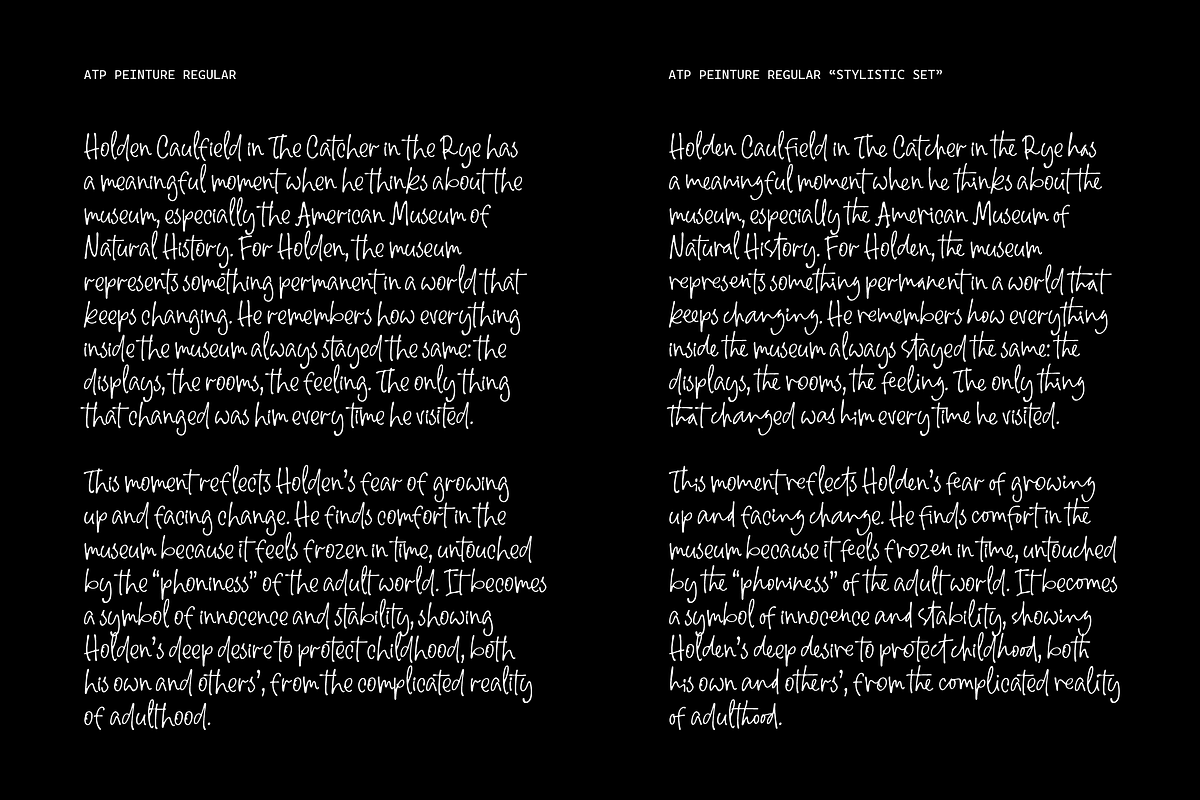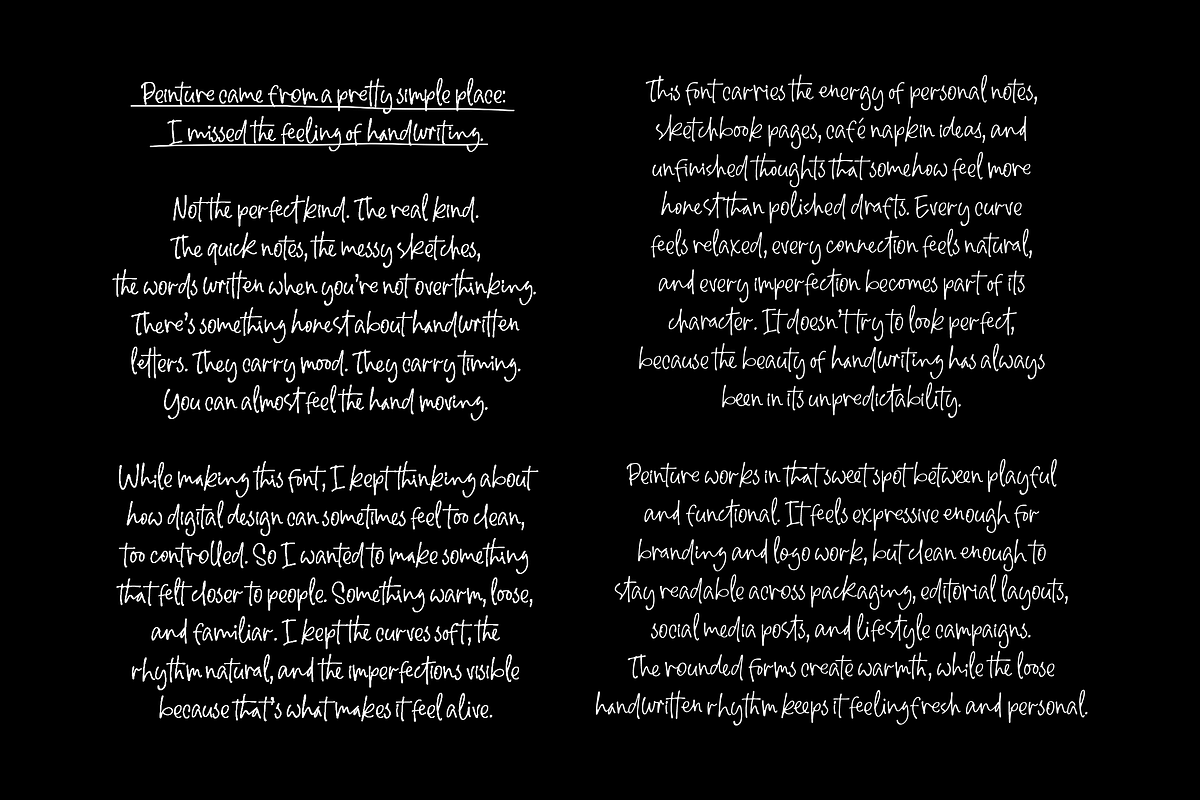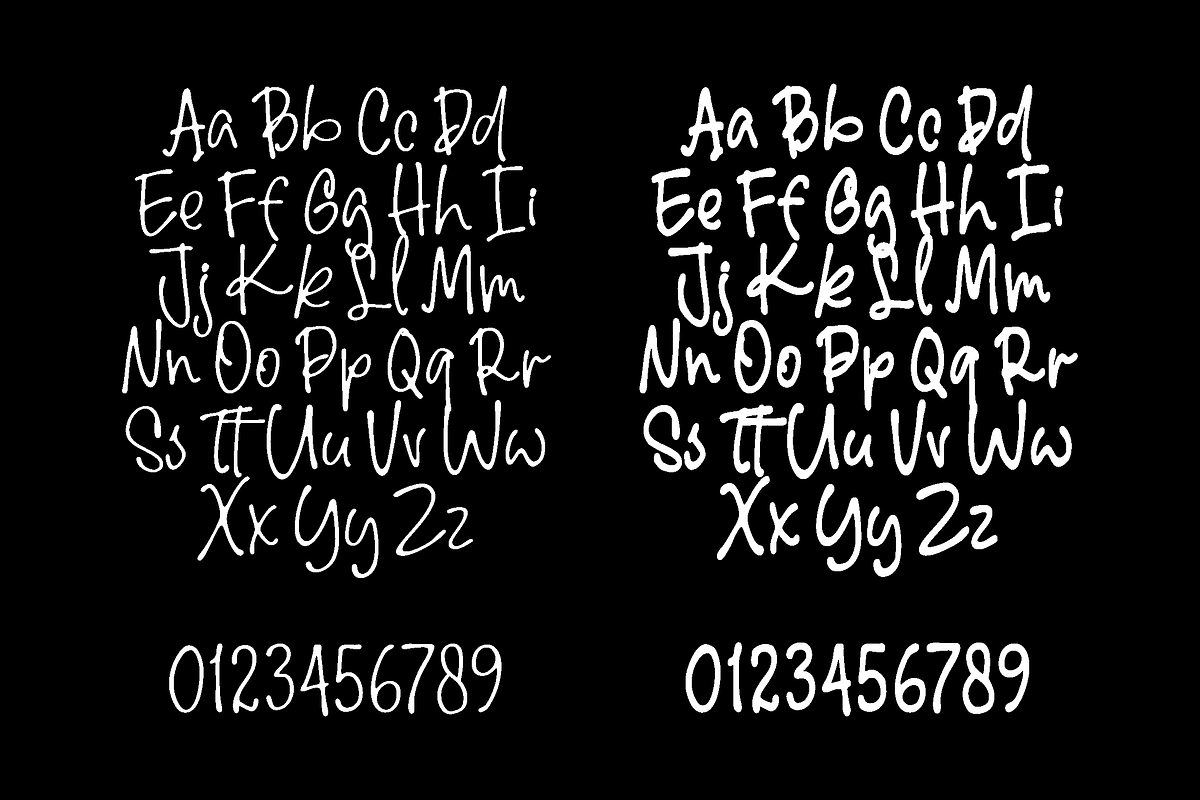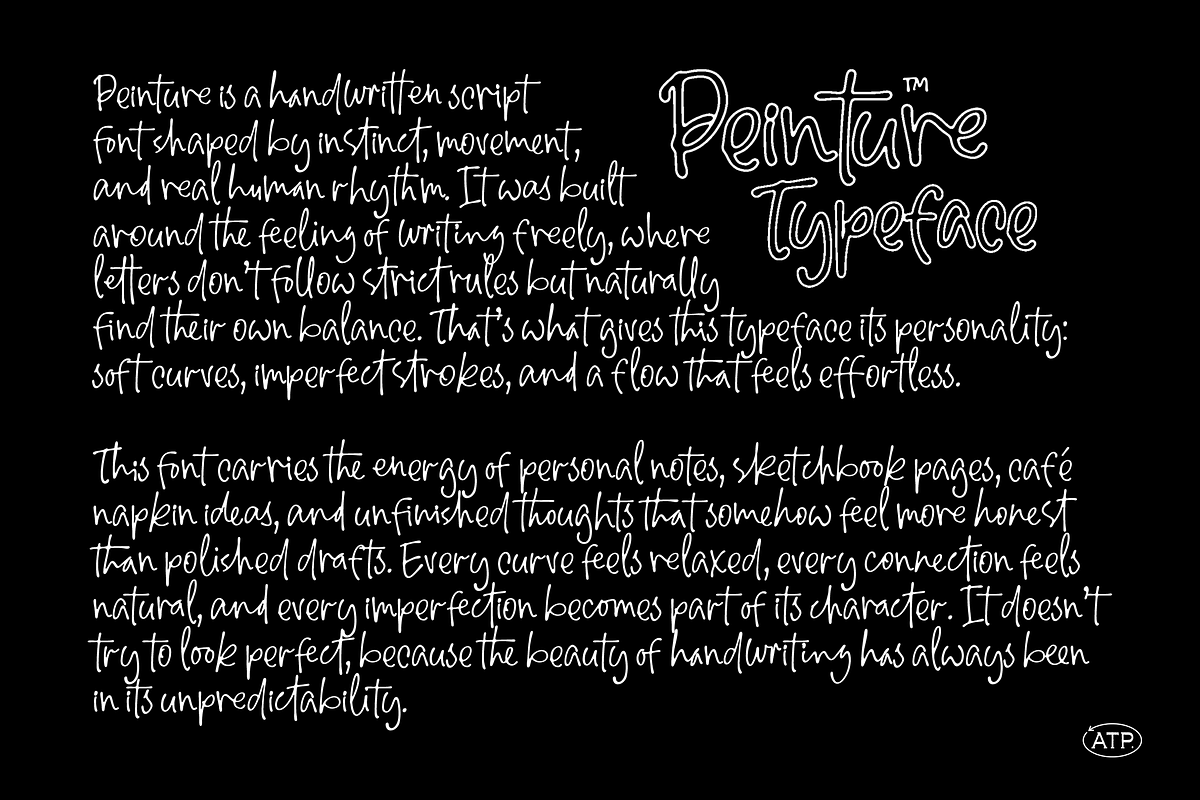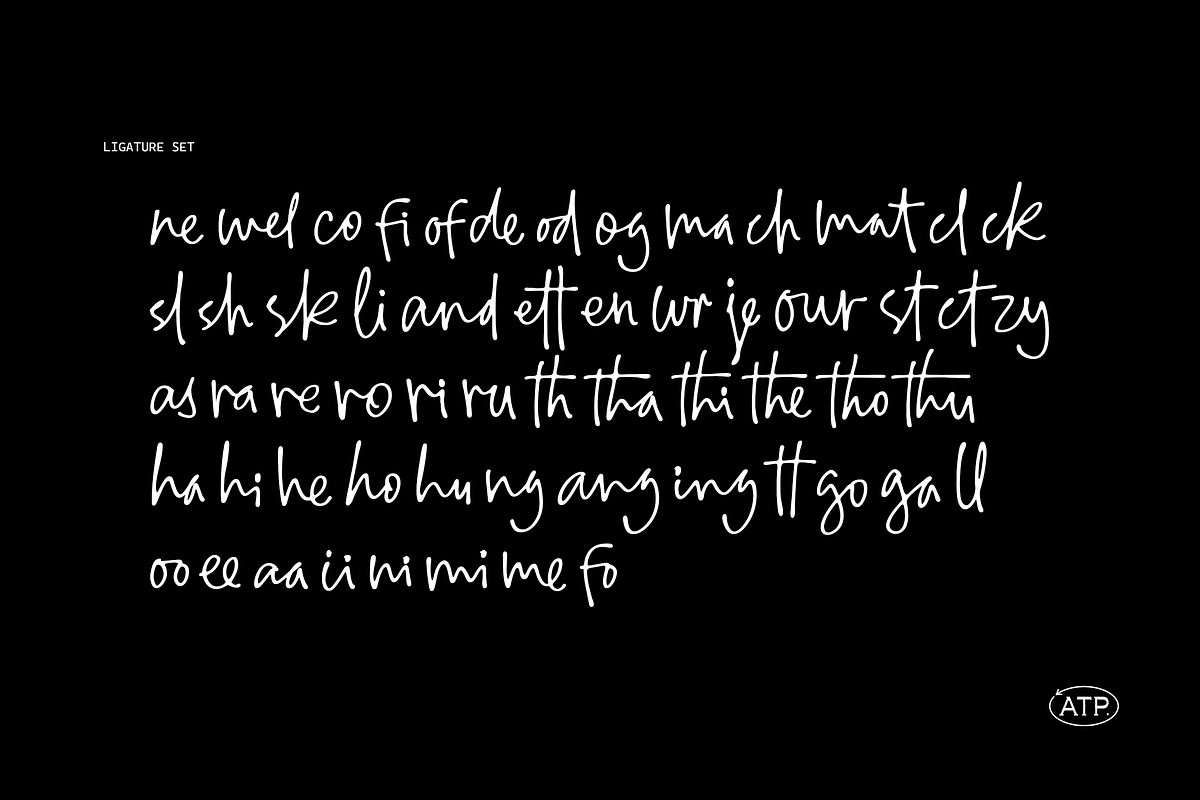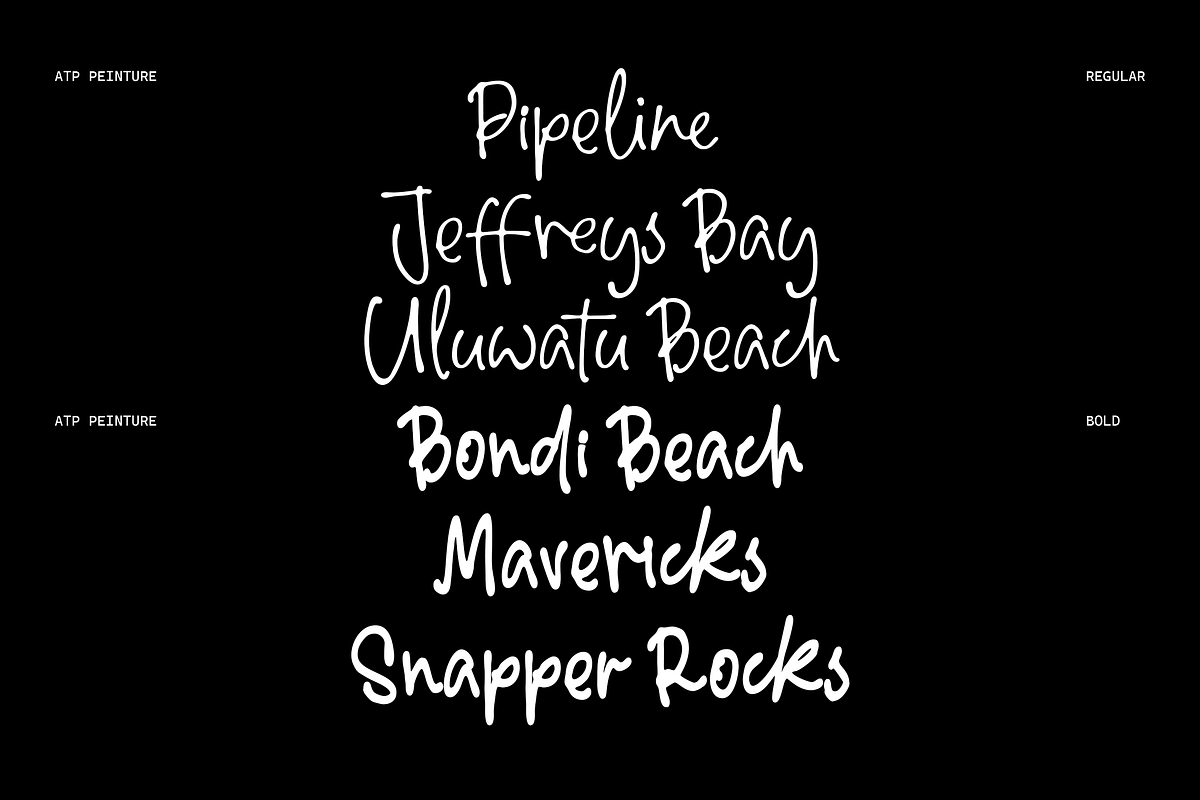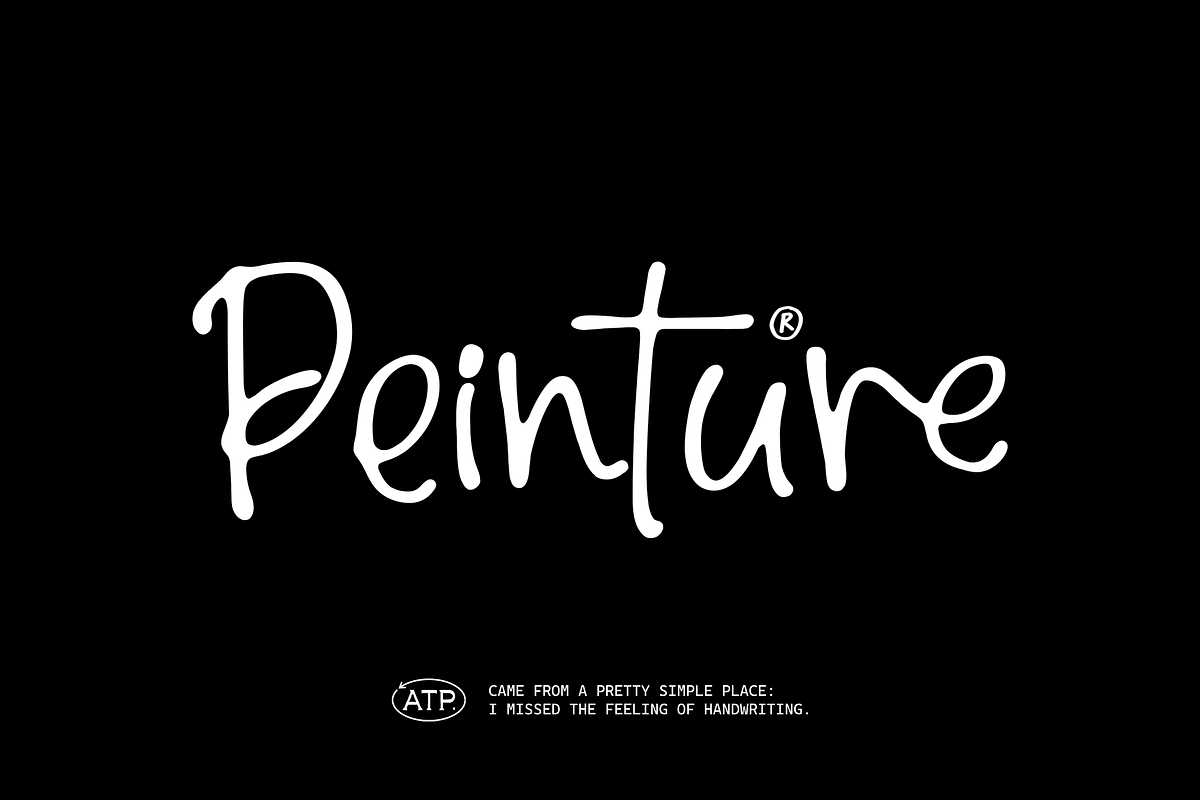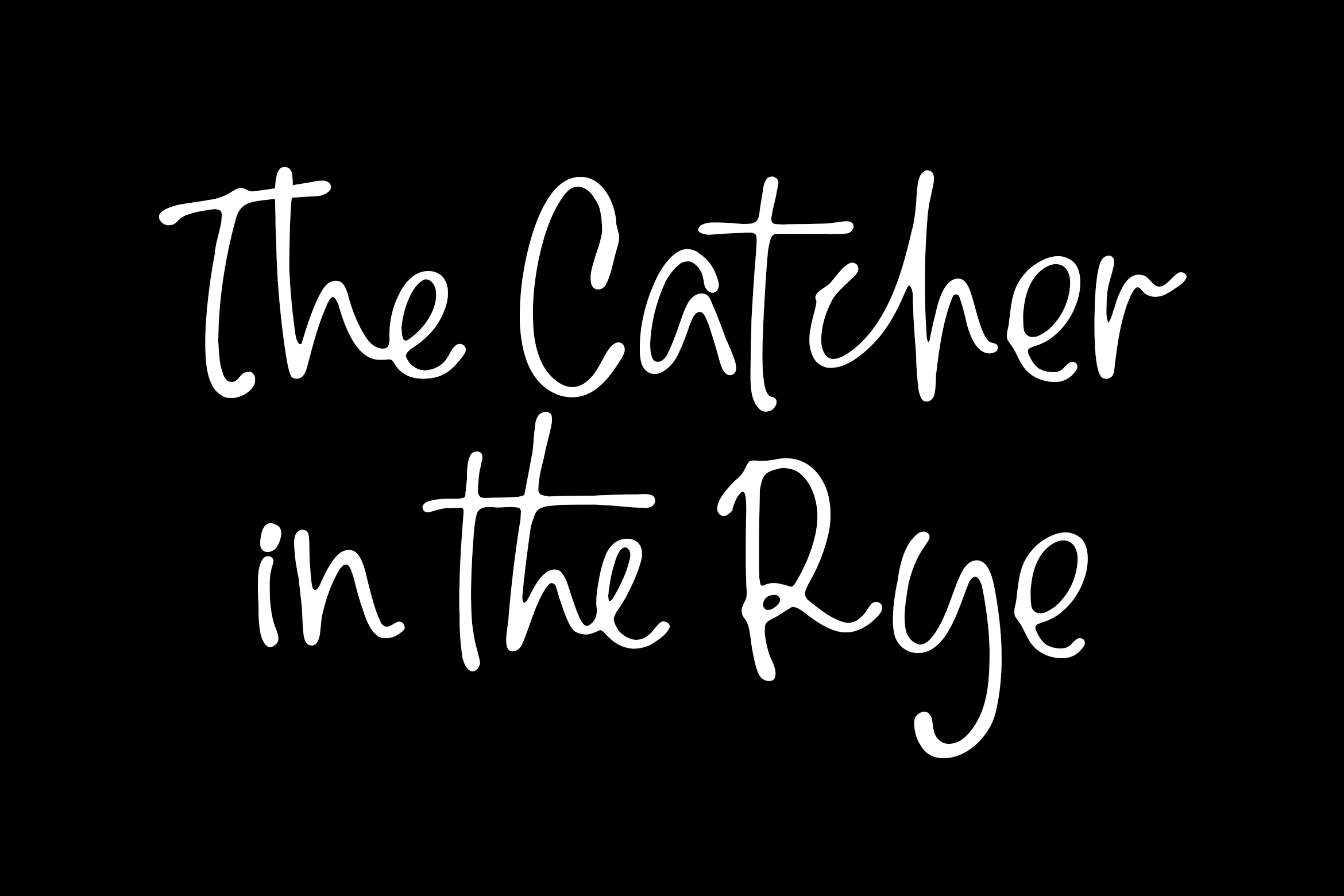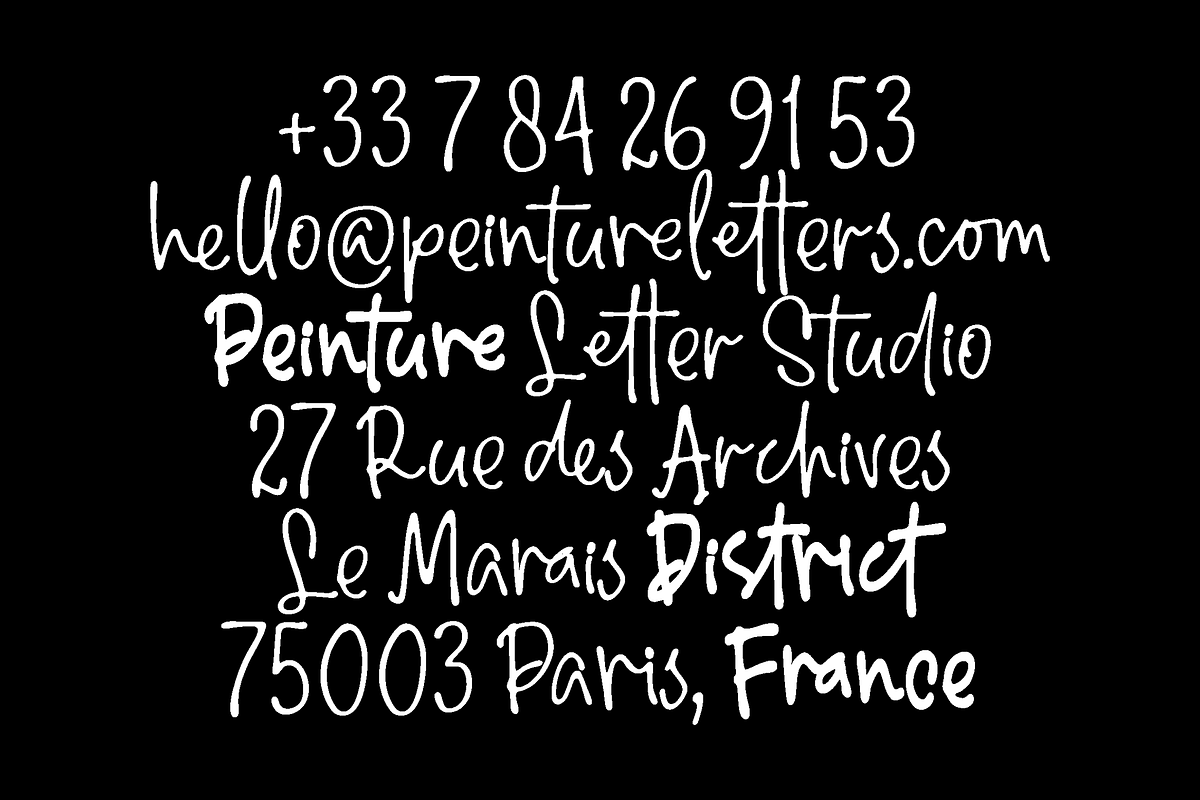
Peinture - Handwritten Script Font
Peinture is a handwritten script font shaped by instinct, movement, and real human rhythm. It was built around the feeling of writing freely, where letters don’t follow strict rules but naturally find their own balance. That’s what gives this typeface its personality: soft curves, imperfect strokes, and a flow that feels effortless.
This font carries the energy of personal notes, sketchbook pages, café napkin ideas, and unfinished thoughts that somehow feel more honest than polished drafts. Every curve feels relaxed, every connection feels natural, and every imperfection becomes part of its character. It doesn’t try to look perfect, because the beauty of handwriting has always been in its unpredictability.
Peinture works in that sweet spot between playful and functional. It feels expressive enough for branding and logo work, but clean enough to stay readable across packaging, editorial layouts, social media posts, and lifestyle campaigns. The rounded forms create warmth, while the loose handwritten rhythm keeps it feeling fresh and personal.
It’s the kind of font that makes a design feel less corporate and more conversational. More lived-in. More human.
Perfect for brands that want to feel approachable, creative, and full of personality.